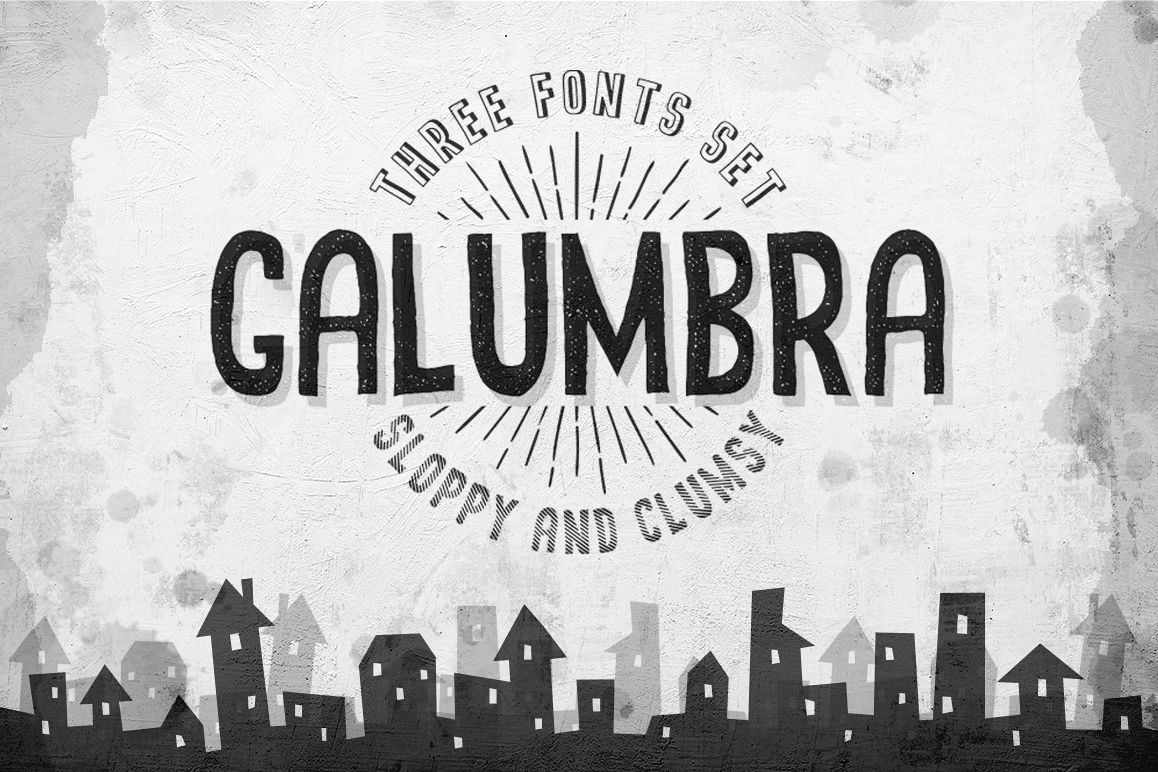
Galumbra Font Set
galumbra rised
galumbra striped
galumbra
It's very simple, hand-made fonts. There is only uppercase letters - no special symbols and no glyphs. However it is amazing beautiful fonts, particularly well suited for some headlines and titles.
Here is the complete list of characters that are included: A B C D E F G H I J K L M N O P Q R S T U V W X Y Z ! ? * « » -